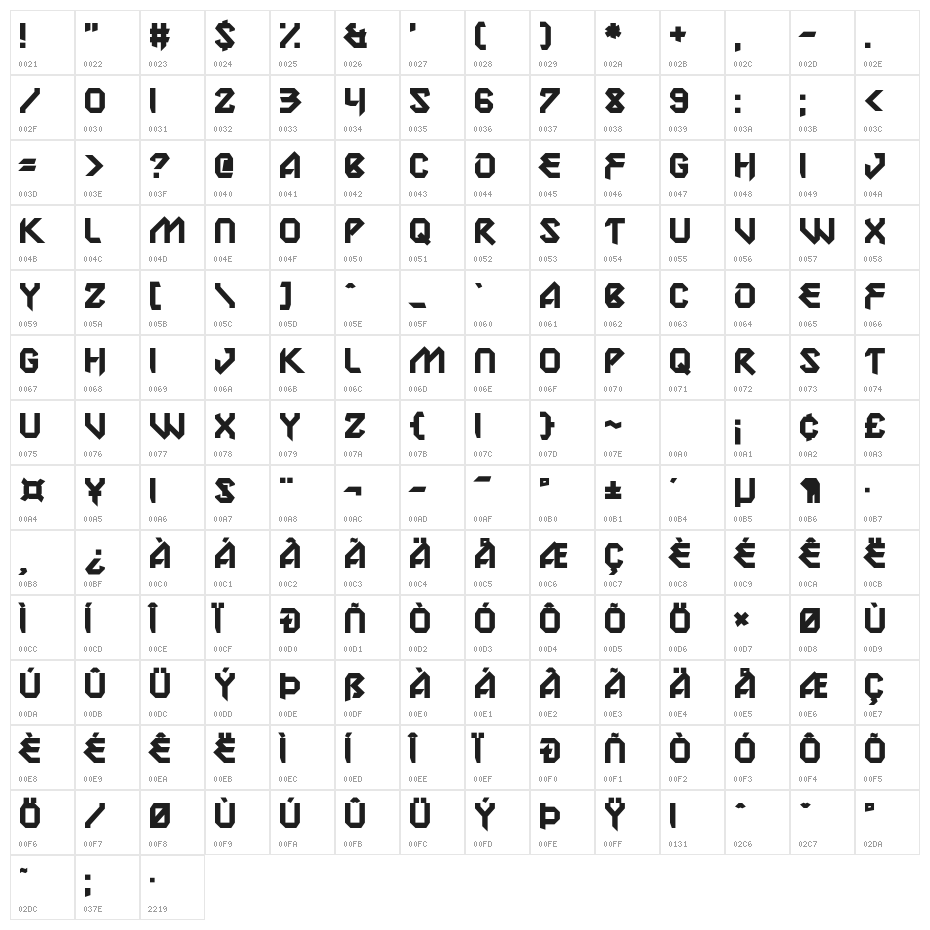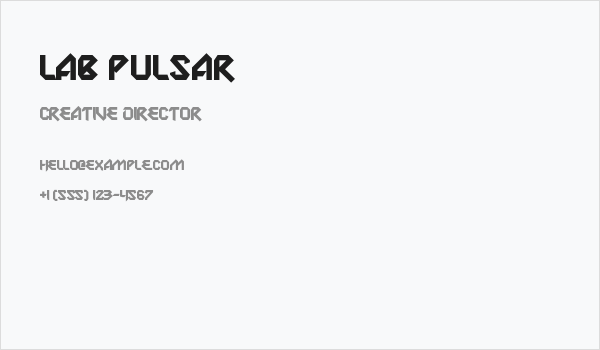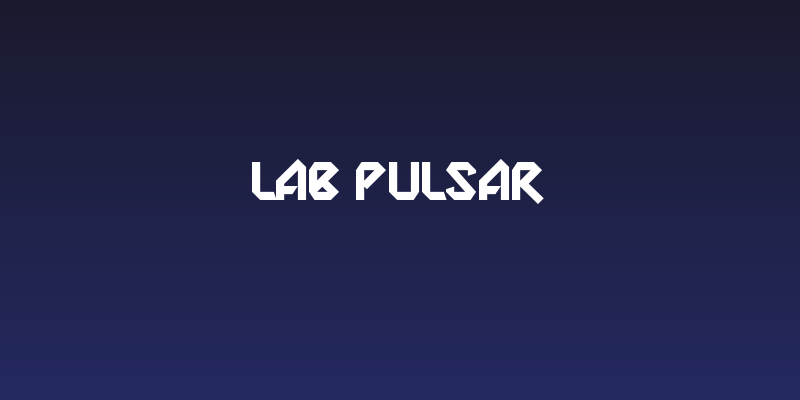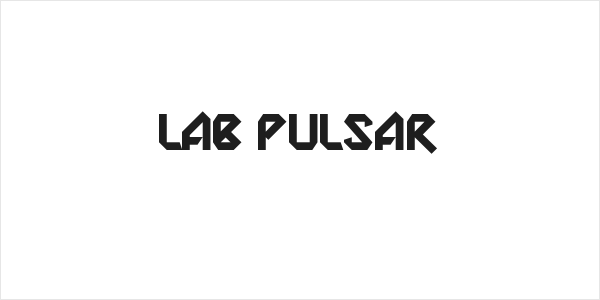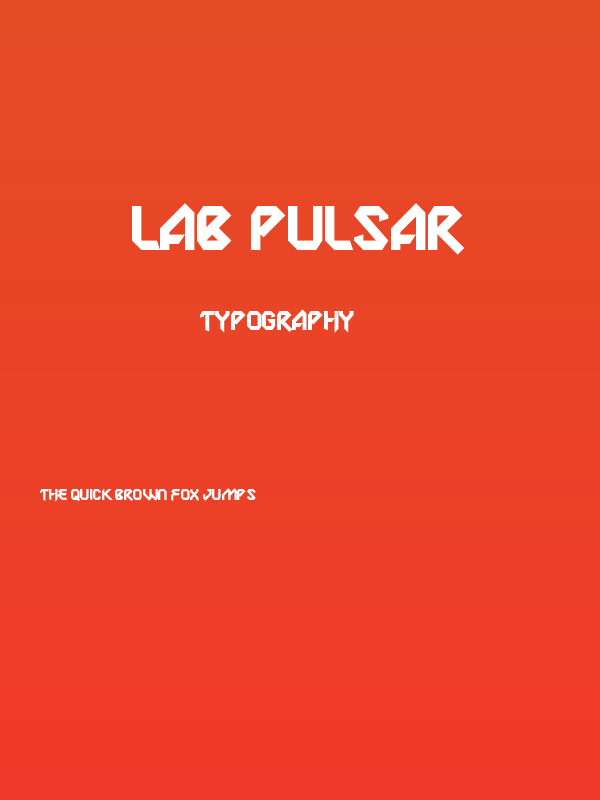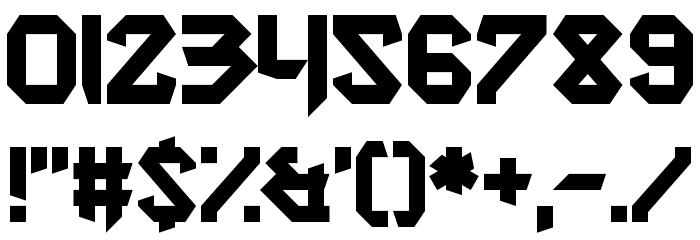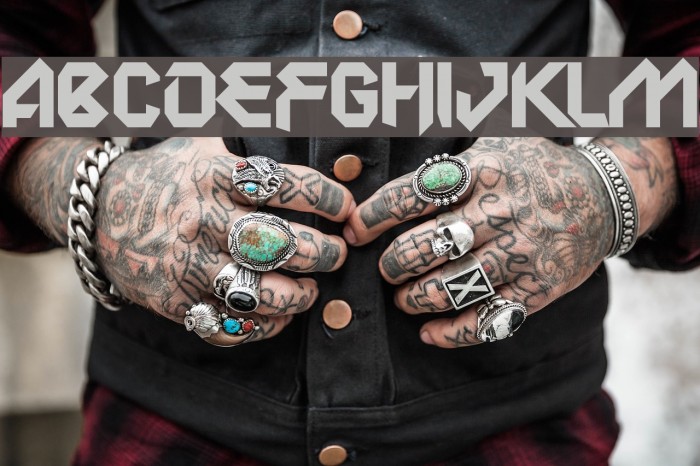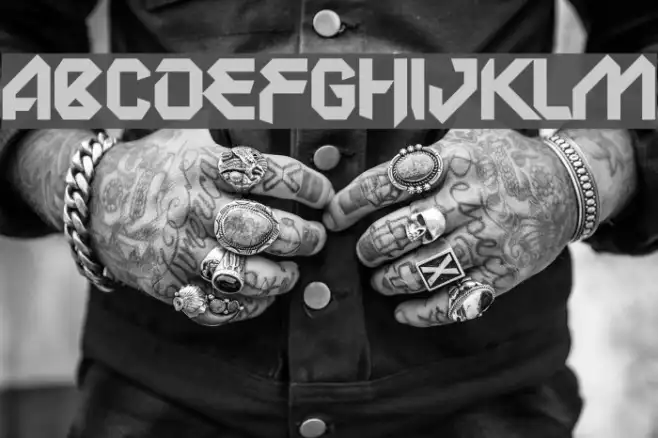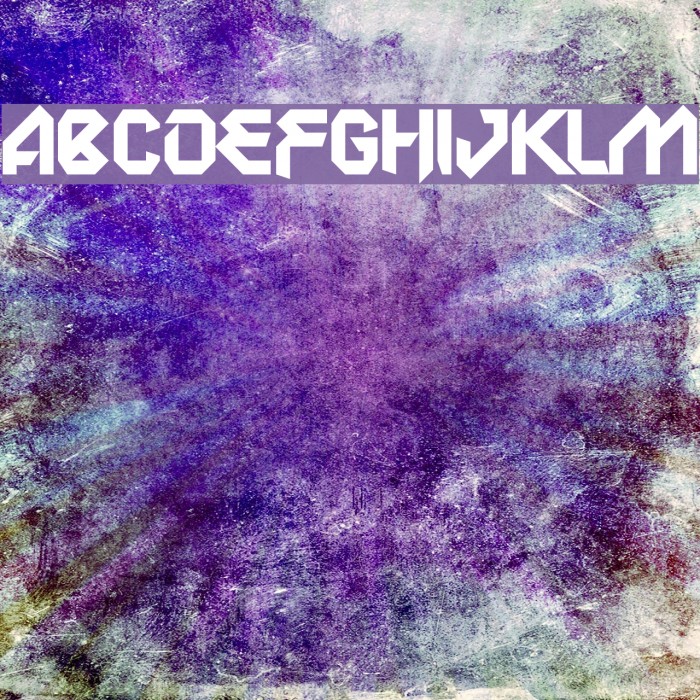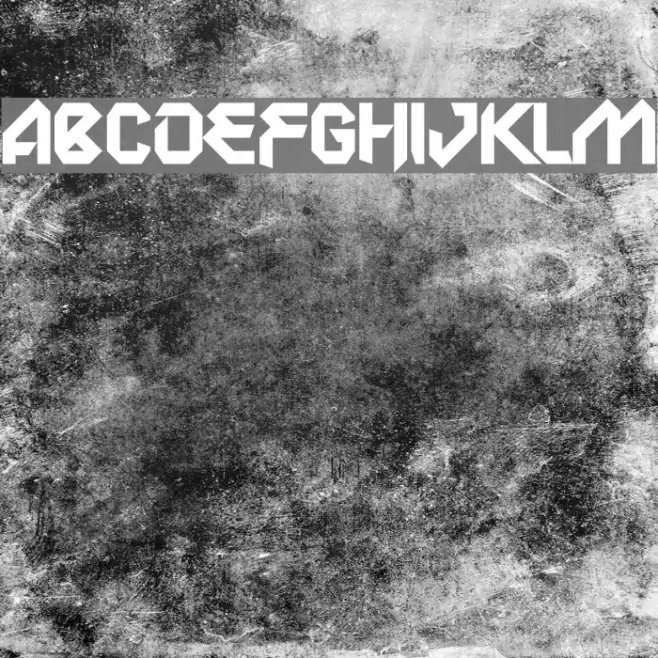
Lab Pulsar Font
Lab Pulsar Description
This font features a bold, geometric design with sharp angles and a futuristic aesthetic. The characters are constructed with thick strokes and angular cuts, giving them a distinct, edgy appearance. The uppercase and lowercase letters maintain a consistent style, with a strong emphasis on symmetry and uniformity. The numerals and special characters follow the same design principles, ensuring a cohesive look across all glyphs. The font's boldness and unique style make it ideal for projects that require a modern and striking visual impact.
| Proposed Projects | Ideal for sci-fi themed designs, video game titles, posters, and branding that requires a modern, edgy look. |